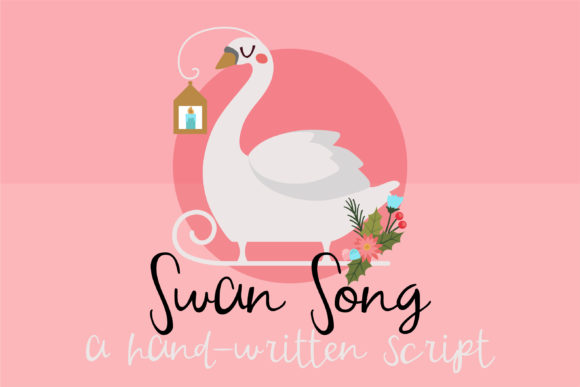
Embark on a typographic journey with PN Swan Song Font, the epitome of charm and allure in the world of script fonts. Created by the talented artisans at Illustration Ink, this font family is more than just a collection of characters; it's an expression of creativity, a splash of whimsy, and a burst of personality.
Swan Song's enchanting strokes dance across the page like a symphony of flowing ink, captivating your audience with its effortless grace. Its casual elegance lends itself perfectly to Instagram posts, where every caption becomes a work of art, and DIY projects, where ordinary objects are transformed into personalized masterpieces.
With Swan Song, your designs will sing with a unique voice, resonating with your audience on a deeper level. Whether you're composing heartfelt letters, crafting eye-catching logos, or designing stunning invitations, this font will elevate your words, making them leap off the page and straight into the hearts of your readers.
Embrace the magic of Swan Song and witness the transformation of your creative visions into captivating realities. Dare to be different, to stand out from the crowd, to let your words dance and your designs soar. Let Swan Song be your muse, your guiding light in the realm of typography, and watch as your creations blossom into breathtaking works of art.